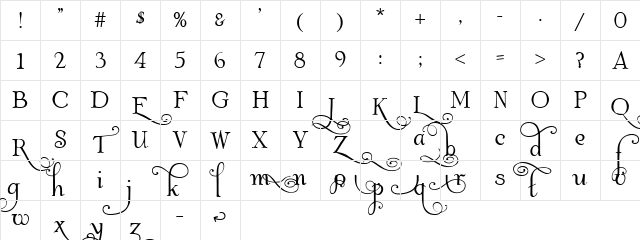
Albemarle Swash Regular Free Font
Albemarle Swash Regular
Design Context for Albemarle Swash
Albemarle Swash flows with the natural rhythm of handwritten lettering, making it ideal for designs that call for warmth and personal expression.
Font Pairing: Combine Albemarle Swash with a simple geometric sans for maximum contrast - the tension between flowing curves and clean structure is a classic typographic pairing.
Pro Tip: Use Albemarle Swash for short runs of text - names, titles, or taglines. Extended body copy in script faces tires the eye quickly.